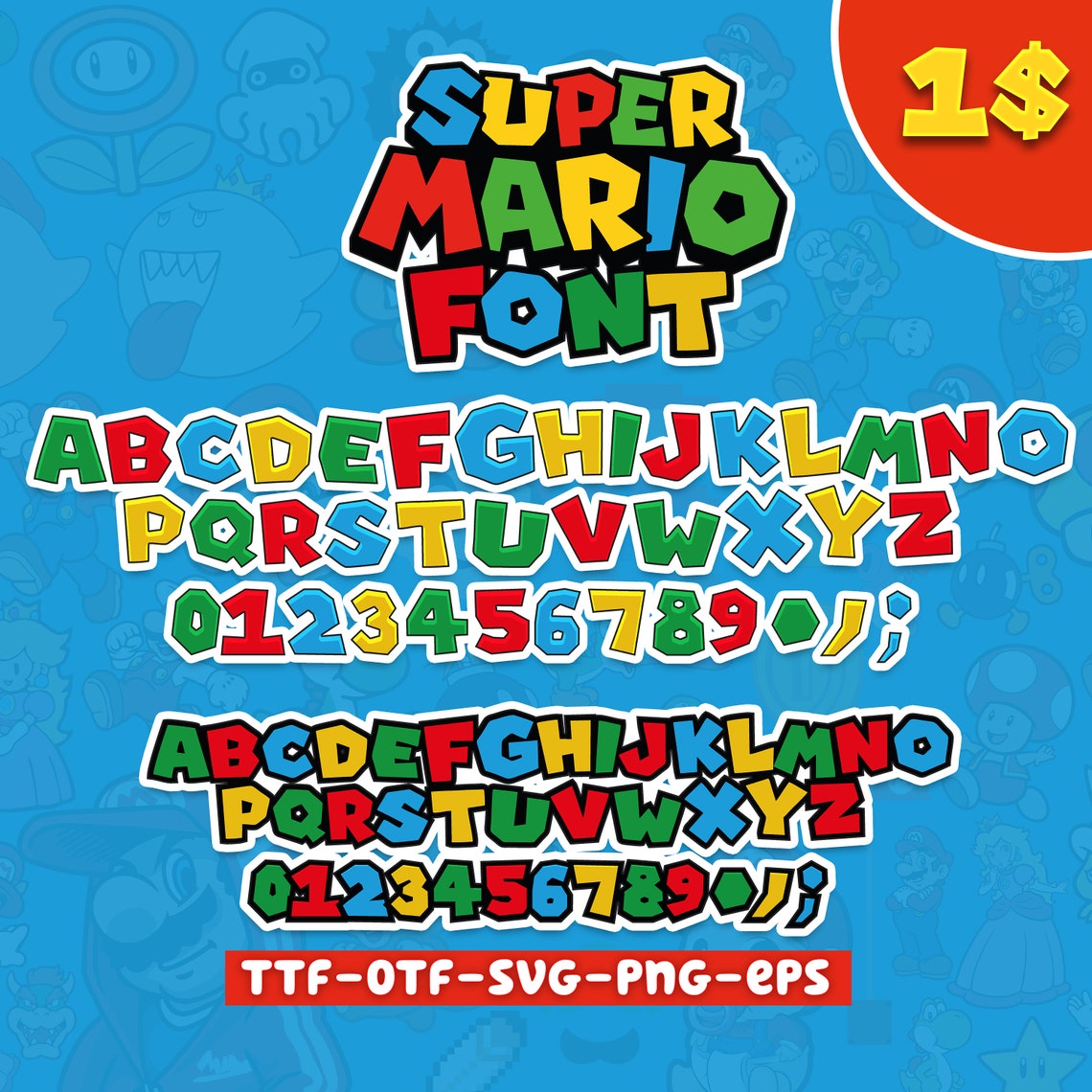
Super Mario Color Font . The text generator below will allow you to create text graphics similar to the style of super. Its super easy and gift for super mario bros fans.
Its super easy and gift for super mario bros fans. Generate bold and colorful mario style text with our free mario font generator. Create a parody with the font and colors of the super mario game with our online generator.
Link to purchase full version and commercial. Create a parody with the font and colors of the super mario game with our online generator. Generate bold and colorful mario style text with our free mario font generator. Unlock the magic of classic gaming with free super mario fonts!
Super Mario Color Font - Create a parody with the font and colors of the super mario game with our online generator. The text generator below will allow you to create text graphics similar to the style of super. My first font, almost an exact replica of the mario letters. Generate bold and colorful mario style text with our free mario font generator. Link to.
Super Mario Color Font - My first font, almost an exact replica of the mario letters. Unlock the magic of classic gaming with free super mario fonts! The text generator below will allow you to create text graphics similar to the style of super. Super mario font is free for personal use. Generate bold and colorful mario style text with our free mario font generator.
Super Mario Color Font - Unlock the magic of classic gaming with free super mario fonts! Create a parody with the font and colors of the super mario game with our online generator. Super mario font is free for personal use. My first font, almost an exact replica of the mario letters. Link to purchase full version and commercial.
Super Mario Color Font - The text generator below will allow you to create text graphics similar to the style of super. Its super easy and gift for super mario bros fans. Unlock the magic of classic gaming with free super mario fonts! My first font, almost an exact replica of the mario letters. Create a parody with the font and colors of the super.
Super Mario Color Font - My first font, almost an exact replica of the mario letters. Super mario font is free for personal use. The text generator below will allow you to create text graphics similar to the style of super. Its super easy and gift for super mario bros fans. Generate bold and colorful mario style text with our free mario font generator.
Super Mario Color Font - The text generator below will allow you to create text graphics similar to the style of super. My first font, almost an exact replica of the mario letters. Generate bold and colorful mario style text with our free mario font generator. Its super easy and gift for super mario bros fans. Super mario font is free for personal use.
Super Mario Color Font - Generate bold and colorful mario style text with our free mario font generator. Unlock the magic of classic gaming with free super mario fonts! The text generator below will allow you to create text graphics similar to the style of super. My first font, almost an exact replica of the mario letters. Create a parody with the font and colors.
Super Mario Color Font - The text generator below will allow you to create text graphics similar to the style of super. My first font, almost an exact replica of the mario letters. Create a parody with the font and colors of the super mario game with our online generator. Link to purchase full version and commercial. Unlock the magic of classic gaming with free.
Super Mario Color Font - Unlock the magic of classic gaming with free super mario fonts! Its super easy and gift for super mario bros fans. The text generator below will allow you to create text graphics similar to the style of super. My first font, almost an exact replica of the mario letters. Create a parody with the font and colors of the super.
Super Mario Color Font - Create a parody with the font and colors of the super mario game with our online generator. My first font, almost an exact replica of the mario letters. Link to purchase full version and commercial. Super mario font is free for personal use. The text generator below will allow you to create text graphics similar to the style of super.
Super Mario Color Font - The text generator below will allow you to create text graphics similar to the style of super. Super mario font is free for personal use. Link to purchase full version and commercial. Generate bold and colorful mario style text with our free mario font generator. Unlock the magic of classic gaming with free super mario fonts!
Super Mario Color Font - Unlock the magic of classic gaming with free super mario fonts! The text generator below will allow you to create text graphics similar to the style of super. Super mario font is free for personal use. Its super easy and gift for super mario bros fans. Link to purchase full version and commercial.
Super Mario Color Font - The text generator below will allow you to create text graphics similar to the style of super. Link to purchase full version and commercial. Create a parody with the font and colors of the super mario game with our online generator. Generate bold and colorful mario style text with our free mario font generator. My first font, almost an exact.